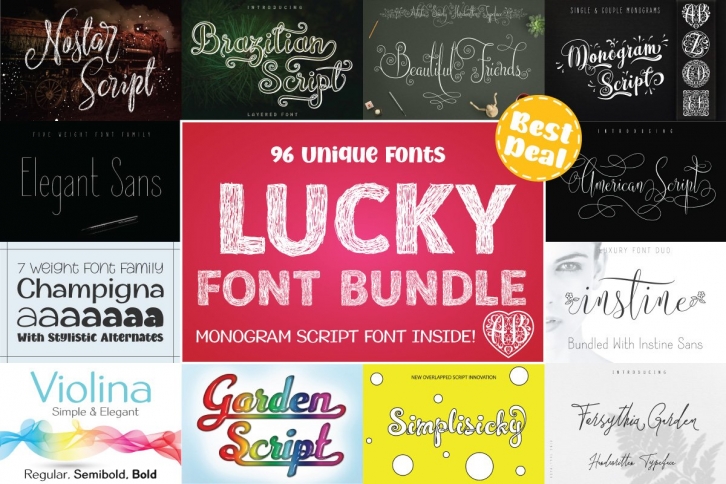
LUCKY Bundle is a gorgeous font that was realeased on May 8, 2020. The font can be used in many style contexts and design environments. Perfect for invitations, magazines, websites, logos, and more! It was designed by Royaltype and the file size is 8.92 MB. Thanks for checking out this font!